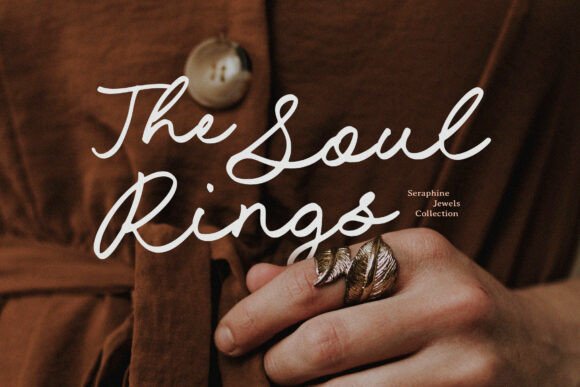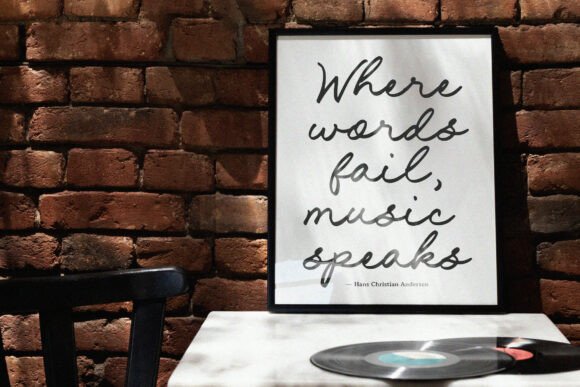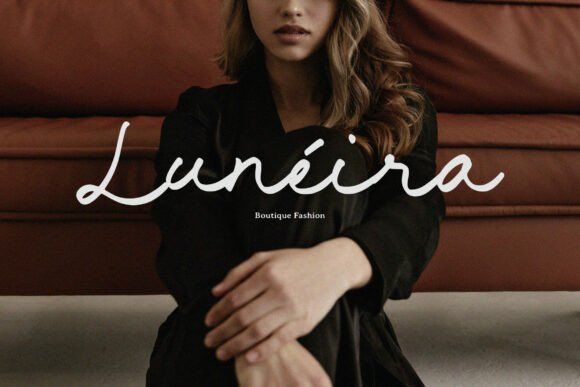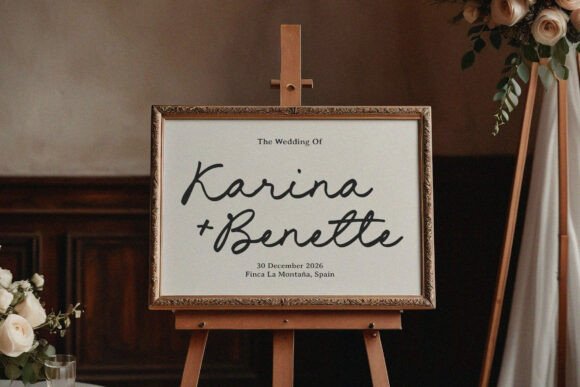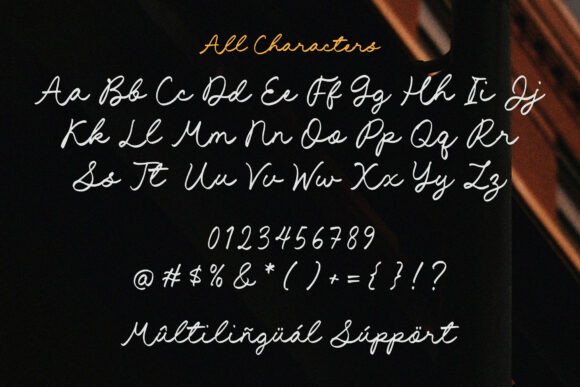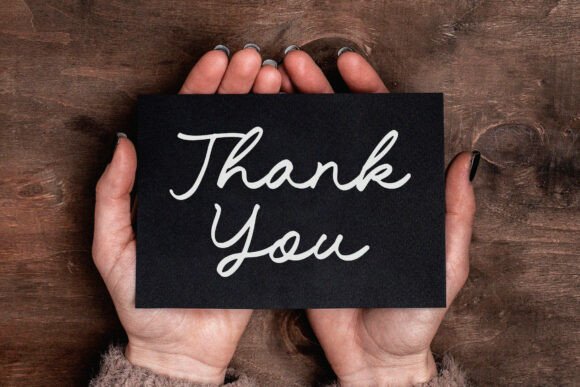
Introduction to Lorieta Huxley Font
This font is a modern handwritten script font that blends elegance with a natural, flowing charm.
Featuring smooth curves and stylish swashes, itโs perfect for branding, wedding invitations, social media graphics, and other creative projects that call for a personal, handcrafted touch With its refined yet playful aesthetic, Lorieta Huxley brings sophistication and warmth to any design.
Key Features of Lorieta Huxley Font
Why Choose Lorieta Huxley Font?